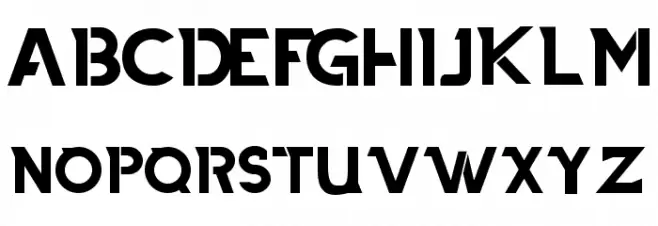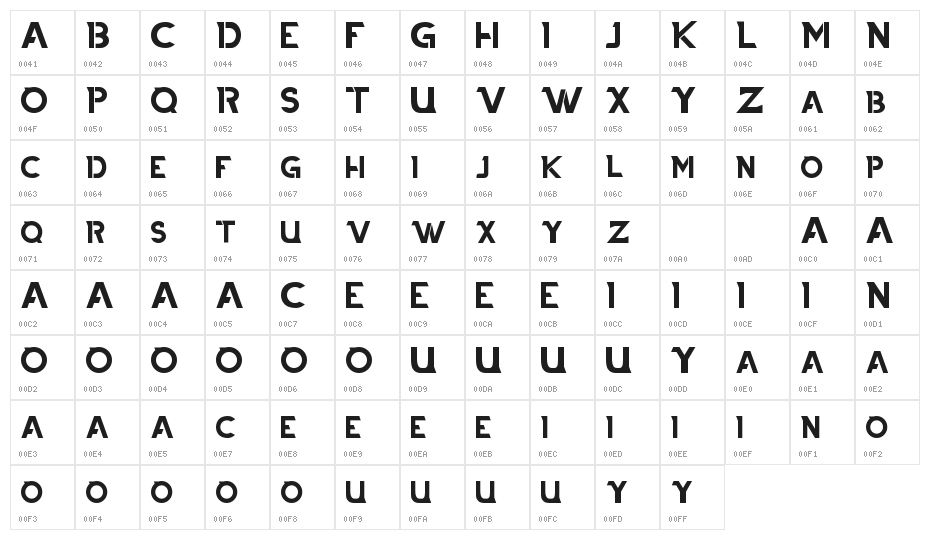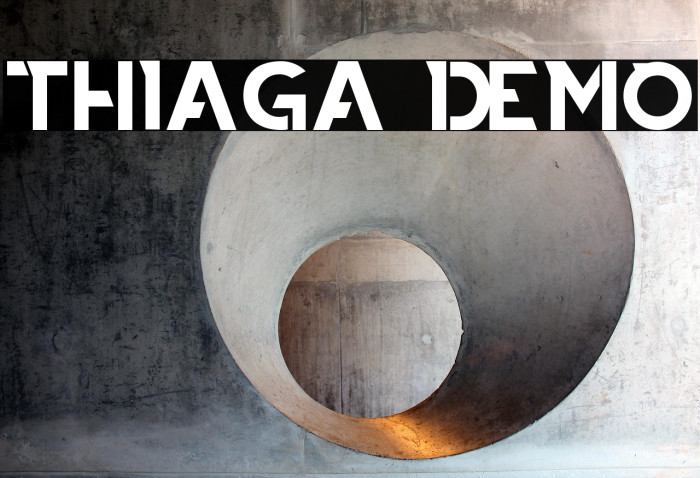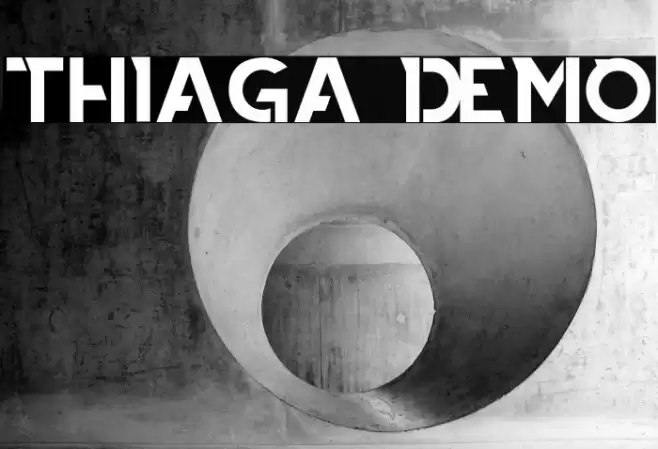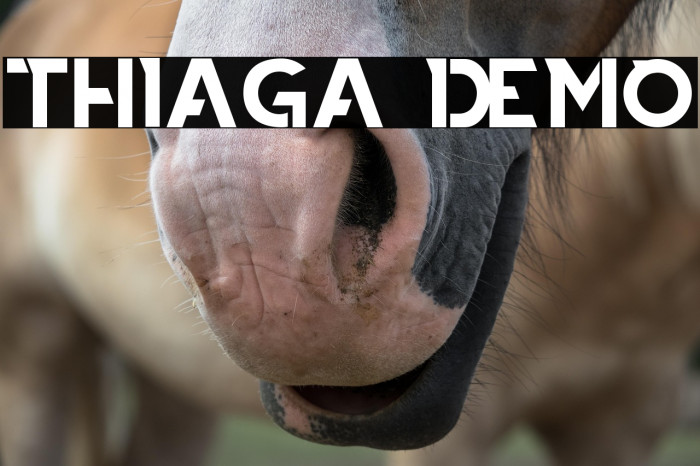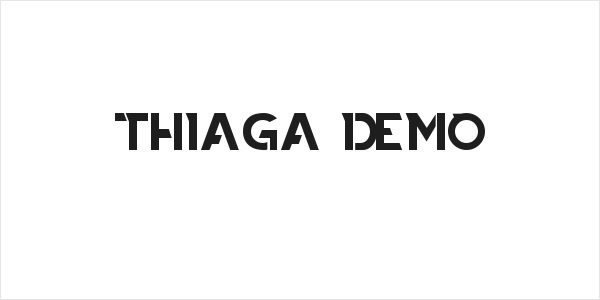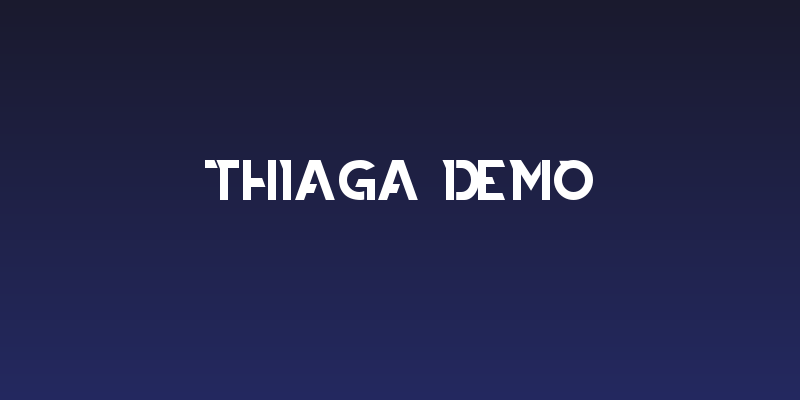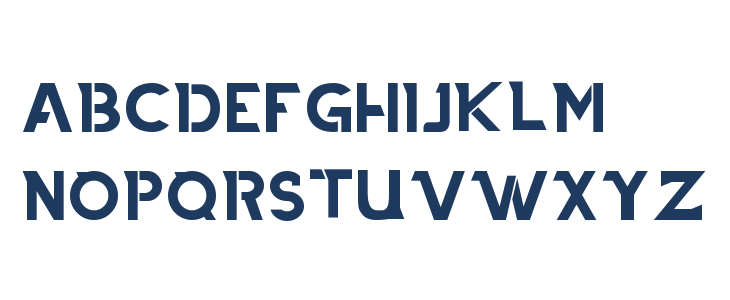
THIAGA DEMO Font
THIAGA DEMO Description
This font features a bold and striking design with geometric elements that create a sense of movement and energy. The characters are crafted with sharp angles and clean lines, giving them a modern and futuristic appearance. The uppercase letters are particularly distinctive, with unique cutouts and shapes that add visual interest. The overall design is cohesive and balanced, making it suitable for attention-grabbing headlines and logos. The font's style is both contemporary and versatile, allowing it to be used in a variety of design contexts.